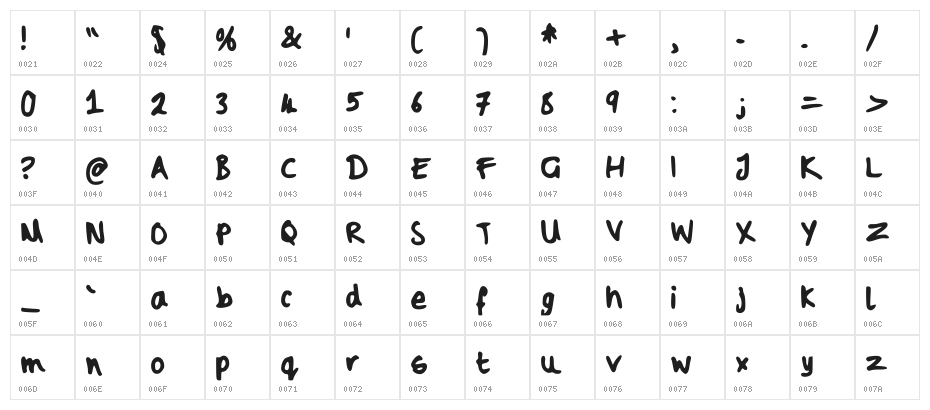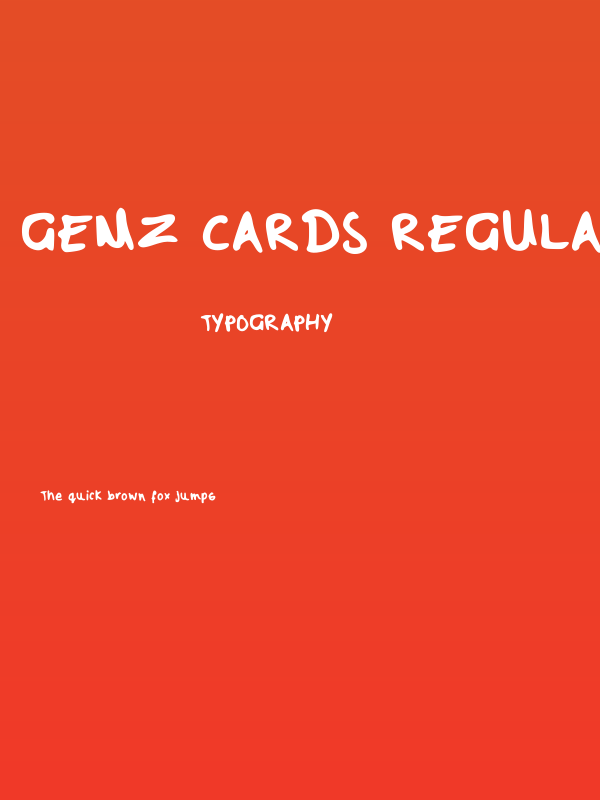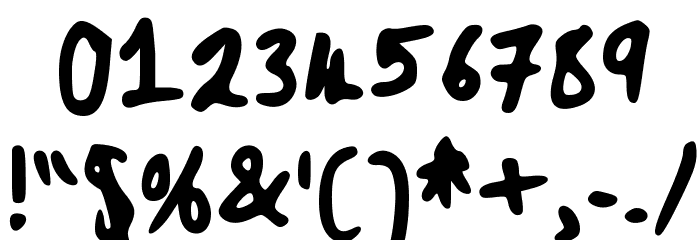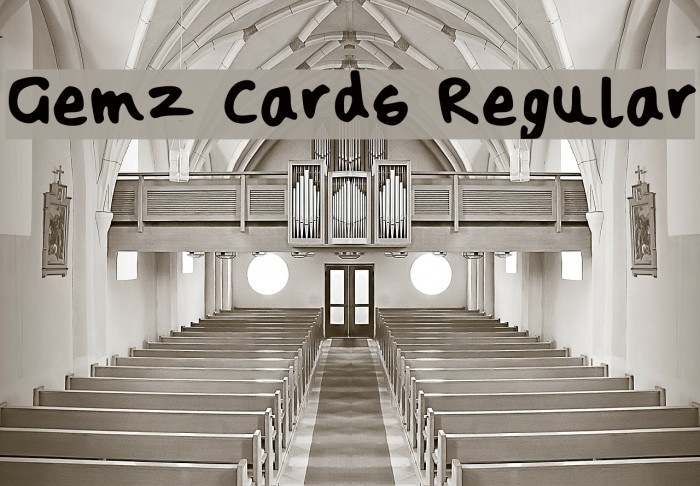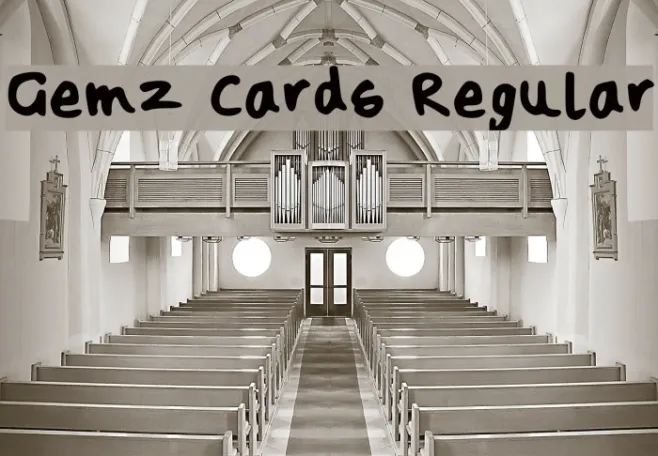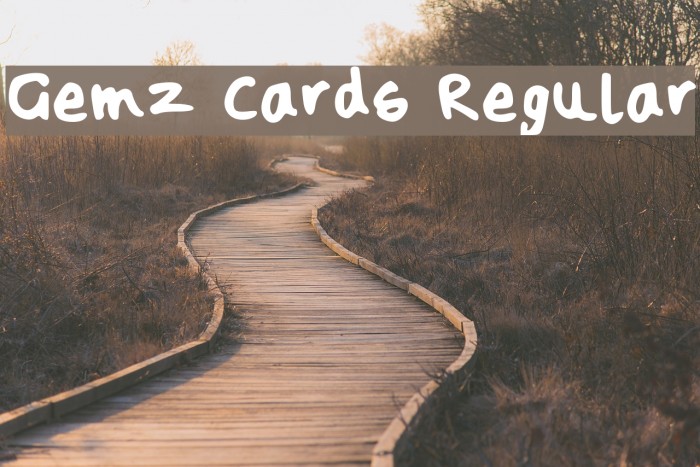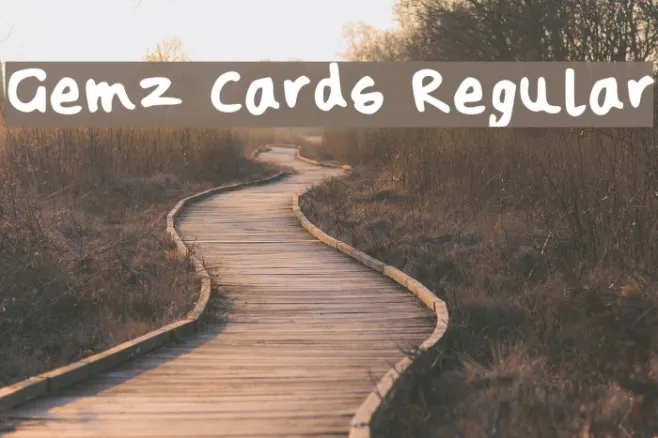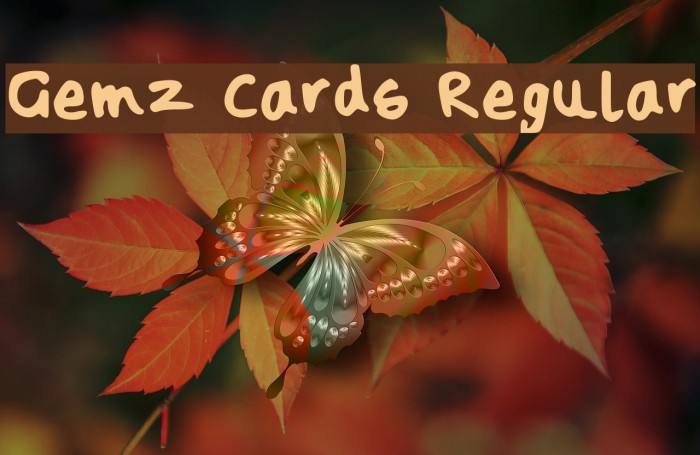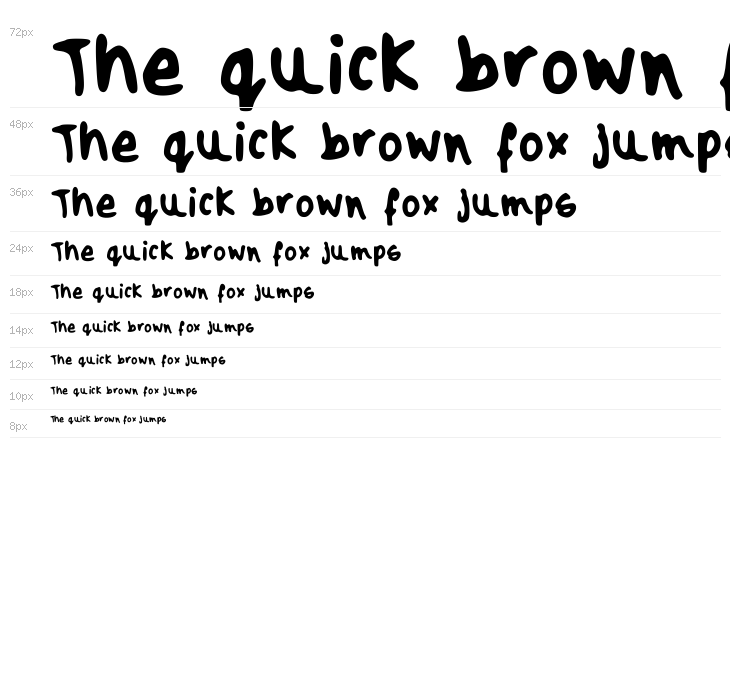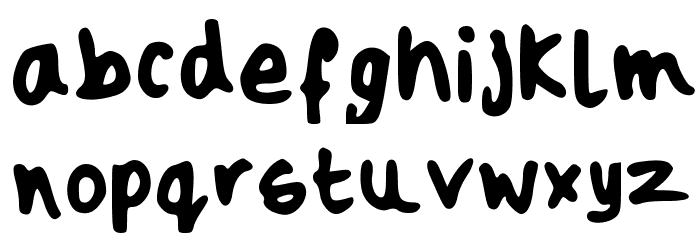
Gemz Cards Regular Font
Gemz Cards Regular Description
This playful and bold font features a handwritten style with a casual and friendly appearance. The letters are rounded and slightly irregular, giving it a whimsical and approachable feel. The strokes are thick and consistent, providing a strong presence on the page. The font maintains a uniform weight throughout, with a slight tilt that adds to its informal charm. It includes a full set of uppercase and lowercase letters, numbers, and a variety of special characters, making it versatile for various design needs. The overall look is reminiscent of a child's handwriting, making it perfect for projects that require a touch of fun and creativity.
| Overall Style | Playful, Casual |
| Proposed Projects | Ideal for children's books, playful branding, greeting cards, and casual invitations. |